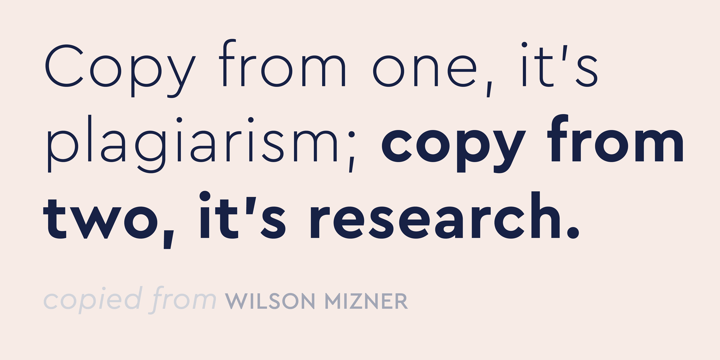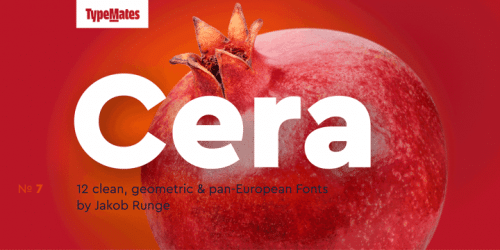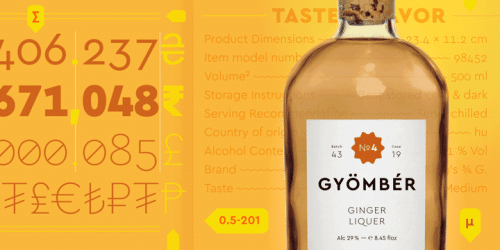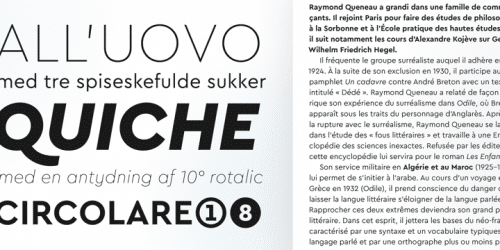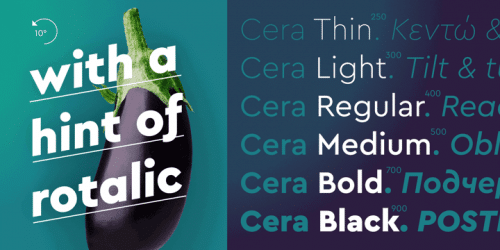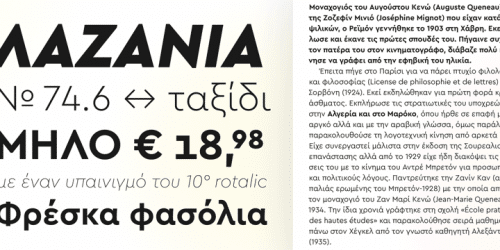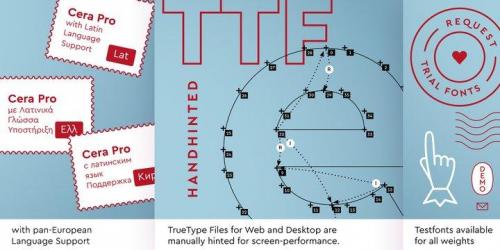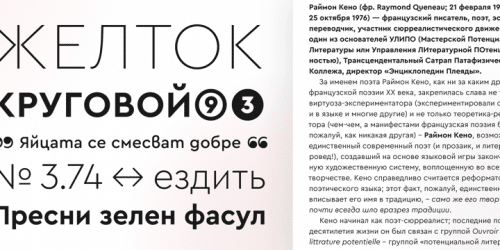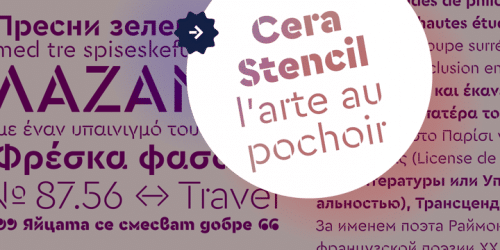
The pan-European Cera Collection is driven by pure geometry and contains the bestselling Cera, its stenciled counterpart Cera Stencil, Cera Condensed, the hand-crafted display Cera Brush and the soft Cera Round.
The starting point for the collection, Cera Pro is distilled from elementary shapes and brings simplicity, elegance and a certain warmth wherever a contemporary geometric typeface is needed.
Cera Pro’s six weights, thin to black, give it a full range of expression for interfaces and corporate design; in print, on screen and in multiple languages. Matching italics, carefully sloped a lively 10º, are invigorated with a dash of rotalic flavour: keeping the o a perfect circle and giving Cera Pro’s italics striking effect when used for display typography.
A steadfast companion for text, Cera Pro has a large x-height and compact capitals. For best on-screen performance the TrueType files for the web and desktop fonts have been improved with manual hinting. Naturally, it also has all the useful dingbats and arrows you might need.
The extended, pan-European Cera Pro supports around 150 languages in the Latin, Cyrillic and Greek scripts, and its non-Latin components were developed with native consultants. With over 980 glyphs per style, Cera cares about localised letterforms and has the OpenType features to match.
- Designer: Jakob Runge